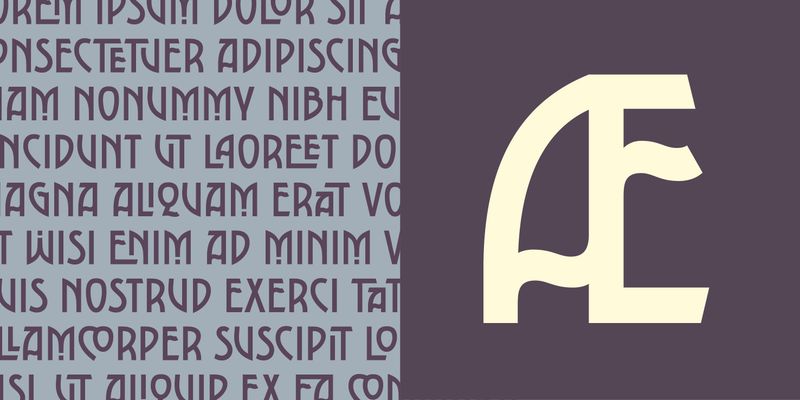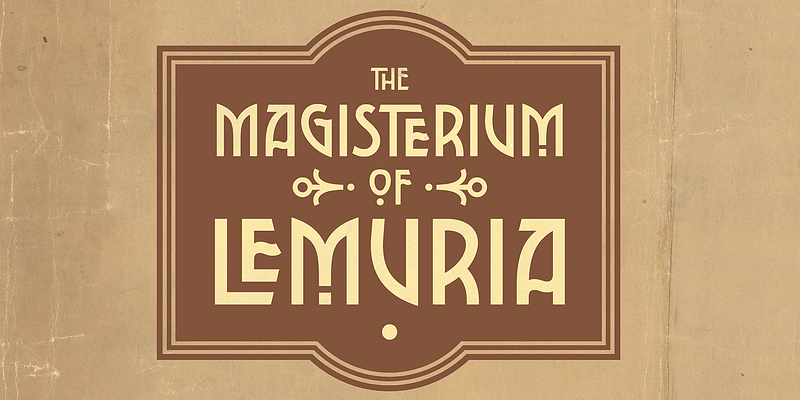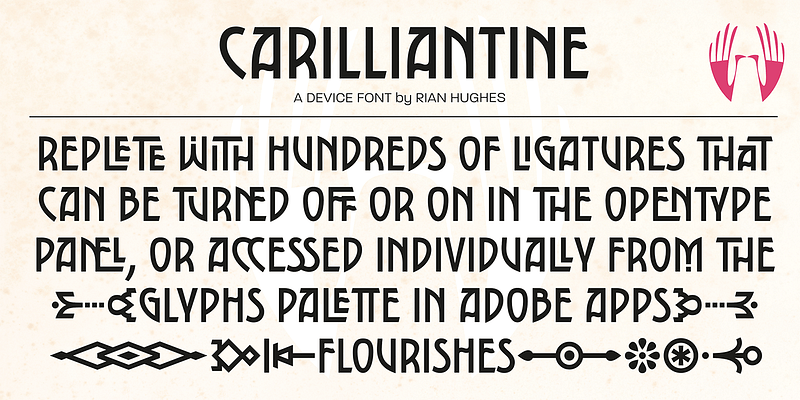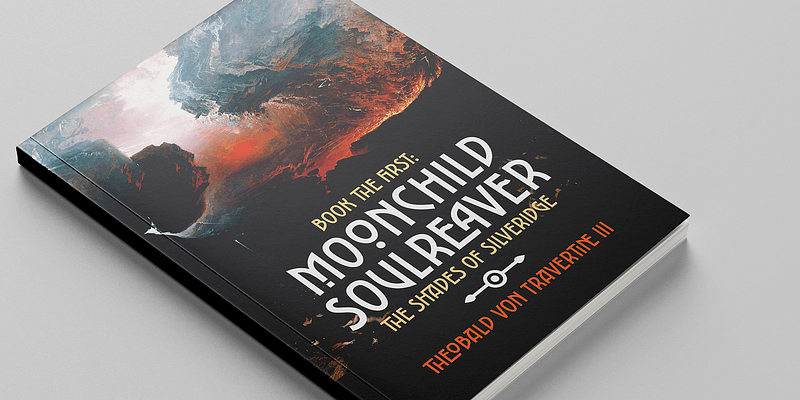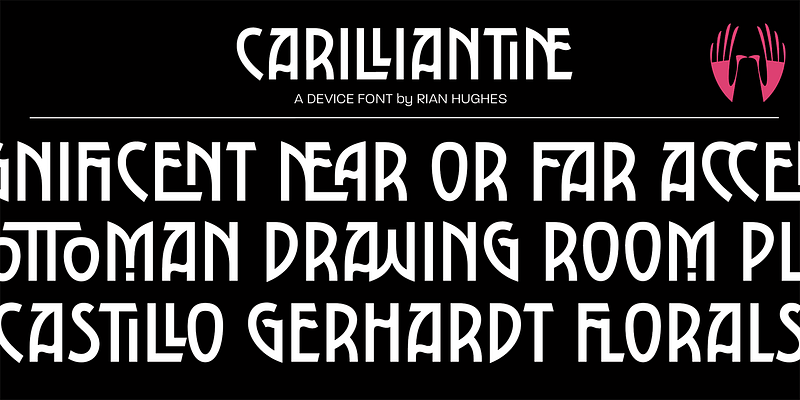
Numerous automatic ligatures mean Carilliantine gives you customised headlines right from the keyboard. These can be togged on or off in the OpenType panel.
Type, design and imagery by English illustrator and typographer Rian Hughes.